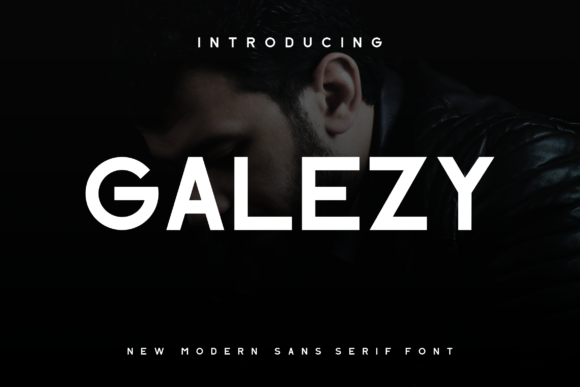
Introducing Galezy Font, a sleek and modern sans serif font that exudes elegance and sophistication. Designed for the modern designer, Galezy Font is perfect for a wide range of projects, from book covers and magazines to social media posts and invitations. Its clean and minimalist vibe makes it a valuable tool for any designer looking to add a touch of class to their work.
Galeazy Font Key Features
- Font Family: The Galeazy font is a unique, modern sans-serif typeface designed for various digital and print applications.
- Character Set: Includes a wide range of characters, including Latin, Cyrillic, and Greek alphabets, as well as punctuation and symbols.
- Size and Resolution: Optimized for use at medium to large sizes (12-48 points) and high resolutions (300-600 DPI) for crisp, clear display.
- Unique Characteristics: Features a distinctive, rounded edge on the corners of the letters, giving it a friendly and approachable feel.
Galezy Font Review
When I first saw the Galezy font, I was immediately drawn to its unique and modern aesthetic. ✨ The font’s geometric shapes and clean lines give it a sleek and sophisticated feel that’s perfect for contemporary designs.
One of the things that works well with the Galezy font is its versatility. ✨ It comes in a range of weights and styles, from light to bold, making it easy to use in a variety of contexts. Additionally, the font’s high x-height makes it easy to read, even at smaller sizes.
However, I do have a few reservations about the Galezy font. ⚠️ One of the main limitations is its lack of nuance. The font’s geometric shapes can sometimes make it feel a bit cold and uninviting, particularly in longer blocks of text. Additionally, the font’s limited support for non-Latin scripts can be a problem for designers working with international clients.
Overall, I think the Galezy font is a solid choice for designers looking for a modern and stylish font. While it may not be the best option for every project, it’s definitely worth considering for designs that require a sleek and sophisticated feel.
- Unique and modern aesthetic
- High x-height for easy readability
- Range of weights and styles
- Supports Latin scripts
Getting the Most Out of Galezy Font
The Galezy font is commonly used for:
1. Titles and headings.
2. Logos and branding
Alternatives to “Galezy Font” for Designers
Montserrat is a sans-serif font that originated in Argentina. It’s a versatile font suitable for various design projects, including logos, headings, and body text. Montserrat is more geometric and modern compared to Galezy Font, which has a more distressed, vintage feel. Use Montserrat when you need a clean, modern look.
Great Vibes is a script font that’s perfect for creating a friendly, approachable atmosphere. It’s ideal for projects that require a relaxed, casual tone. Compared to Galezy Font, Great Vibes has a more fluid, cursive feel, making it better suited for creative, artistic projects. Use Great Vibes when you need to convey a sense of warmth and approachability.
3. Museo
Museo is a slab serif font that’s perfect for creating a classic, elegant look. It’s suitable for projects that require a sense of sophistication and refinement. Compared to Galezy Font, Museo has a more traditional, formal feel, making it better suited for luxury brands, high-end designs, and editorial projects. Use Museo when you need to convey a sense of sophistication and elegance.